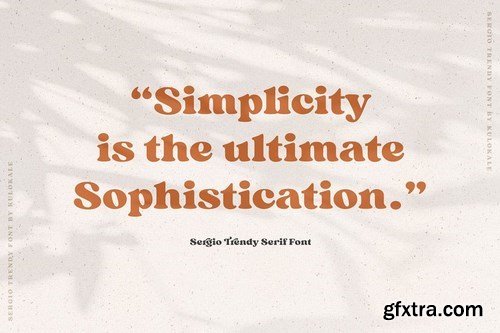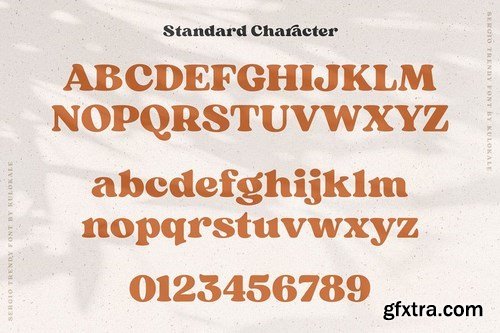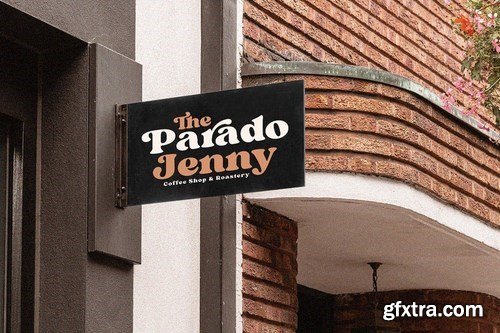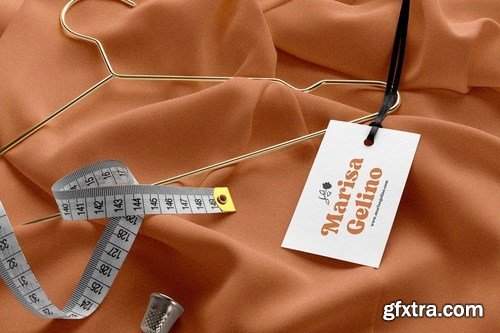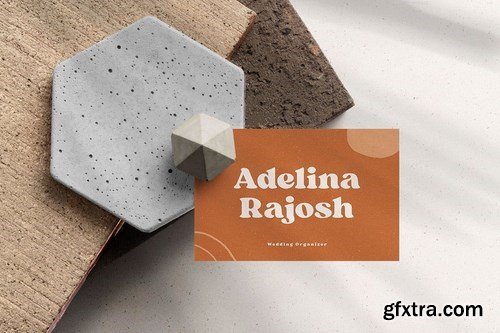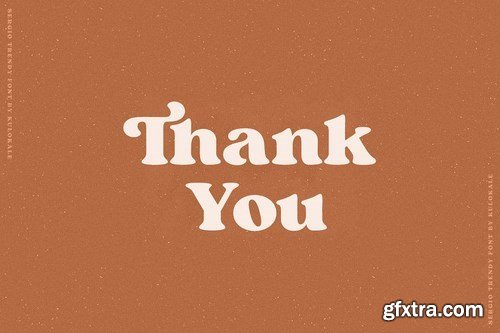
Sergio Trendy is a modern and elegant serif font. Sergio Trendy is well-suited for advertising, branding, logotypes, packaging, titles, headlines and editorial design.
Sergio Trendy is perfect for many different projects such as logos & branding, invitation, stationery, wedding designs, social media posts, advertisements, printed quotes, product packaging, product designs, label, photography, watermark, special events or anything. We highly recommend using a program that supports OpenType features and Glyphs panels such as Adobe Illustrator, Adobe Photoshop CC, Adobe InDesign, or CorelDraw, so you can see and access all Glyph variations.